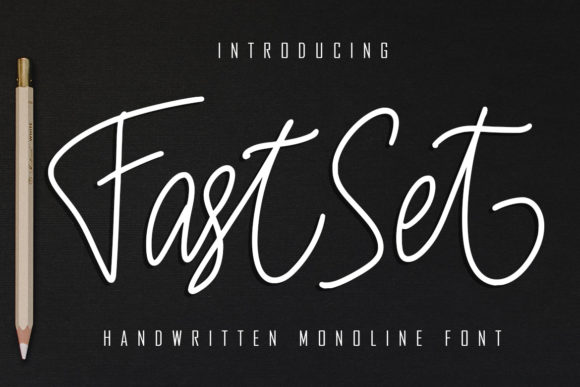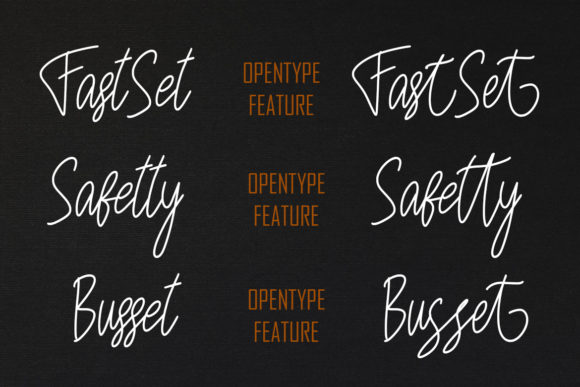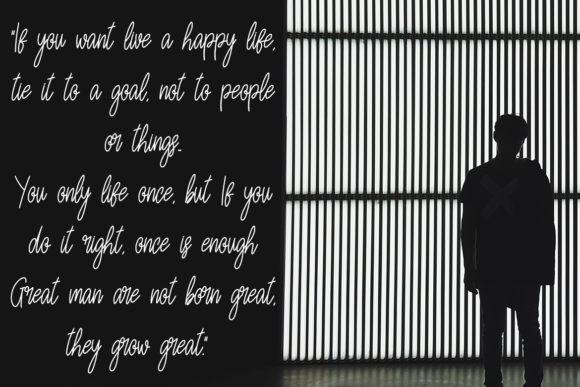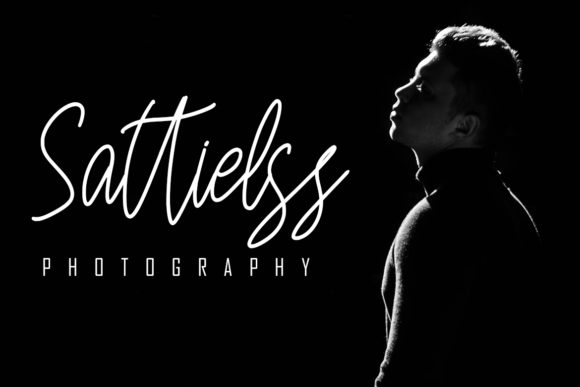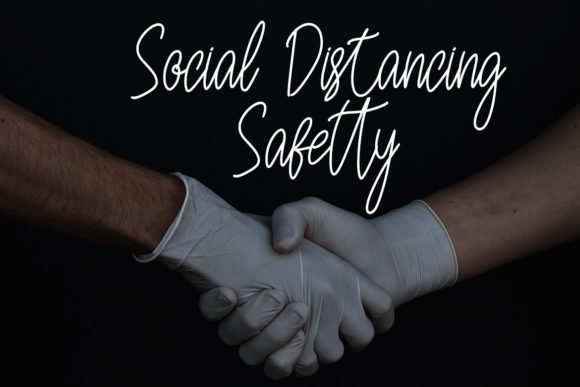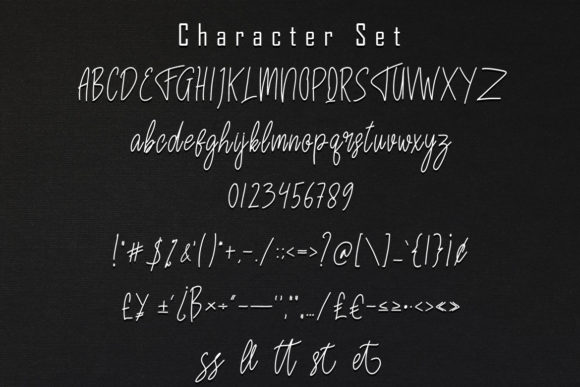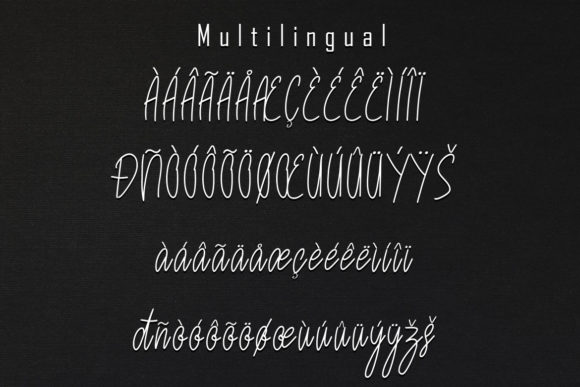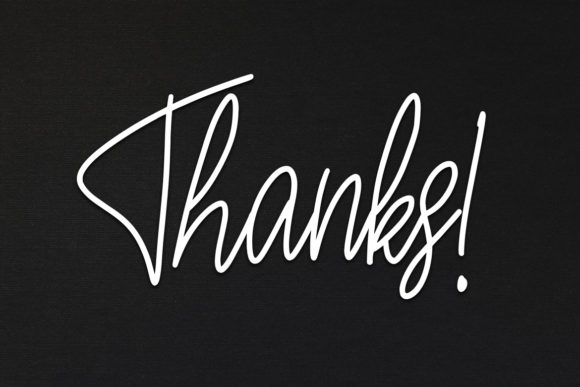
Fast Set Font
Fast Set simplifies elegance into one truly outstanding handwritten font. It maintains its classy calligraphic influences while feeling contemporary and fresh. Fast Set is the perfect font for making original and outstanding designs.